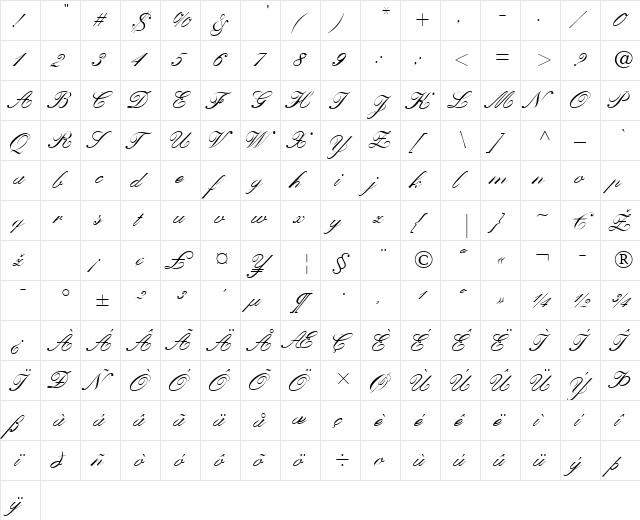
KuenstlerScript LT Medium Regular Font Preview
Design Context for KuenstlerScript LT Medium Typeface
KuenstlerScript LT Medium flows with the natural rhythm of handwritten lettering, making it ideal for designs that call for warmth and personal expression. Its slender proportions lend an understated elegance to any composition.
Font Pairing: Combine KuenstlerScript LT Medium with a simple geometric sans for maximum contrast — the tension between flowing curves and clean structure is a classic typographic pairing.
Pro Tip: Pair KuenstlerScript LT Medium with a clean sans-serif for supporting text. The contrast between fluid script and geometric structure creates an elegant typographic hierarchy.